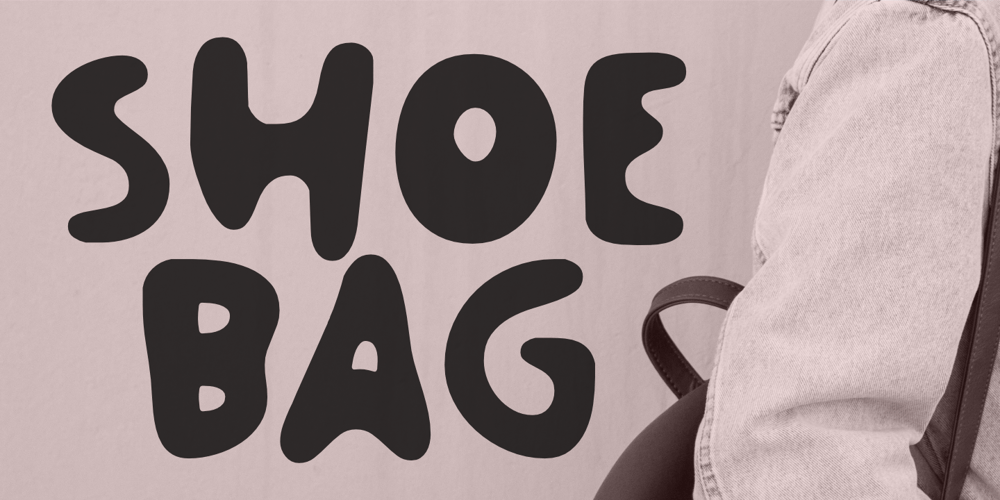
Shoe Bag Font Family was designed by Aldy Sidik and published by Epiclinez. Shoe Bag contains 1 styles and family package options. Step into a world of creativity with Shoe Bag, the whimsical display font that’s ready to add a splash of fun to your designs! With its smooth lines and playful curves, this font effortlessly transforms text into captivating visuals that demand attention. Imagine using Shoe Bag for your next logo or poster—its unique charm will make your designs stand out and evoke smiles and curiosity from all who see them.Shoe Bag features :- Standard Latin- Numbers, symbols, and punctuations- Multilingual Support.- Fully accessible without additional design software- Simple Installations- Works on PC & MacThank You.